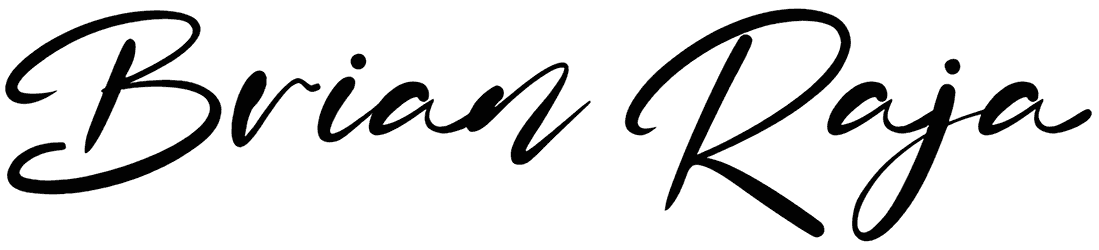
Brian Raja Font
A handwritten font with a casual and contemporary look is called Brian Raja. It is perfect for giving designs a more personalized feel because it is natural and organic. It looks great in letters, signs, motifs, and invitations due to its ornate and curly attached style.